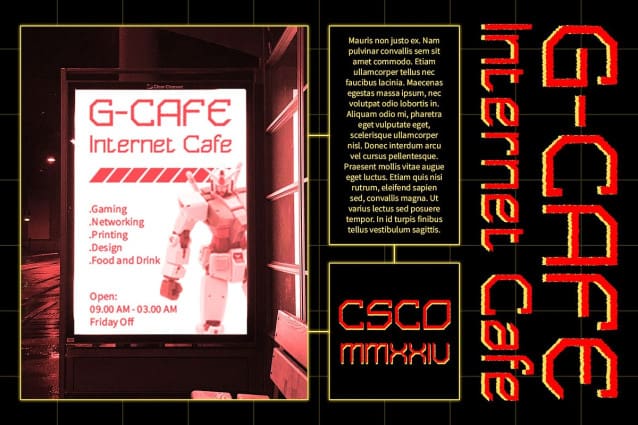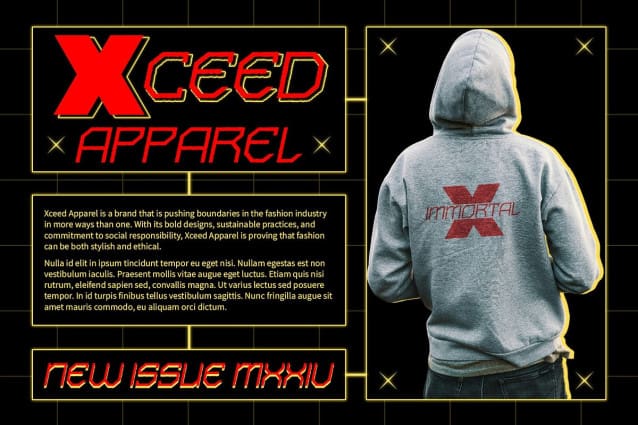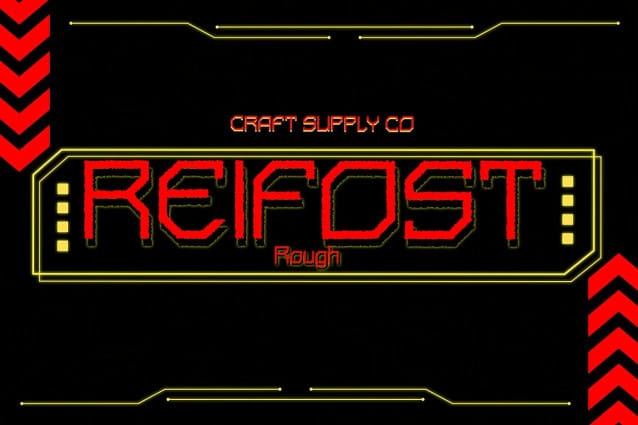
Reifost Rough Font
Reifost Rough Font is a cutting-edge display font that exudes boldness. Its innovative design brings a modern, edgy vibe to your projects, ensuring they make a strong and memorable impact.
Perfect for Attention-Grabbing Displays Crafted to grab attention, Reifost Rough is ideal for headlines, banners, and other display purposes. Its futuristic and edgy aesthetic ensures that your message is not just seen but also leaves a lasting impression.
Flexible and Powerful Despite its futuristic appearance, ReifostRough is flexible and powerful. Its display font format makes it suitable for various projects, from branding to digital designs, where a font with a dynamic visual presence is essential.
Adds a Contemporary Flair Reifost Rough is perfect for projects that require a contemporary flair. Whether you’re designing a poster, logo, or website, this font will undoubtedly add a modern and memorable touch to your designs.